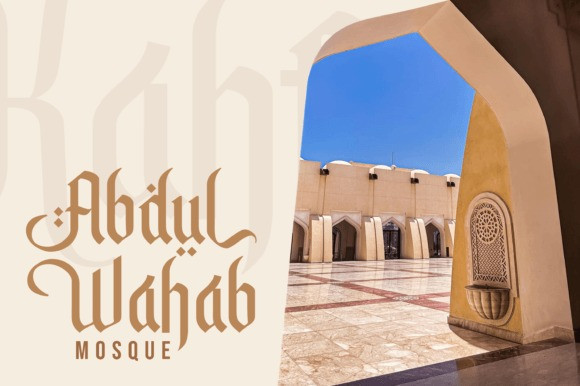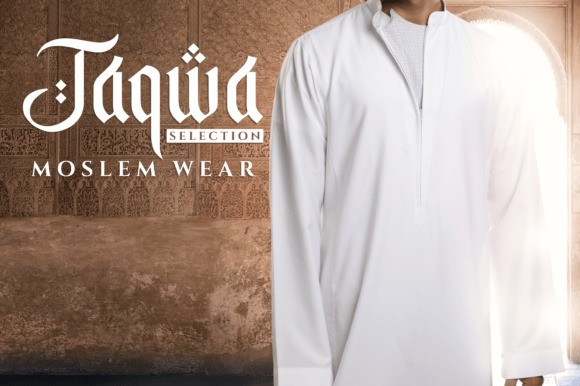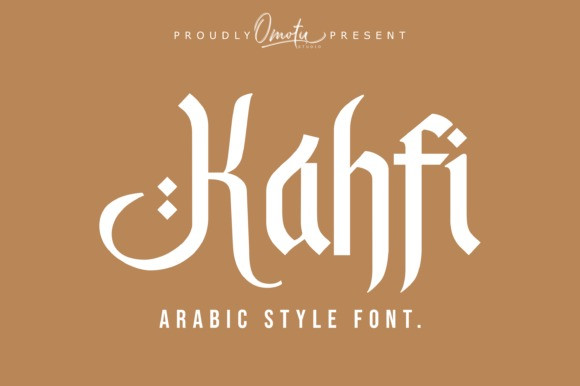
Kahfi Font
Kahfi Font is an arabic style font. This font very usable for designing all kind of graphics design related to Islamic Contents. Kahfifont is suitable for heading, branding, logotype, apparel, T-shirt, Hoodie, product packaging, quotes, flyer, poster, book cover, advertising, etc.